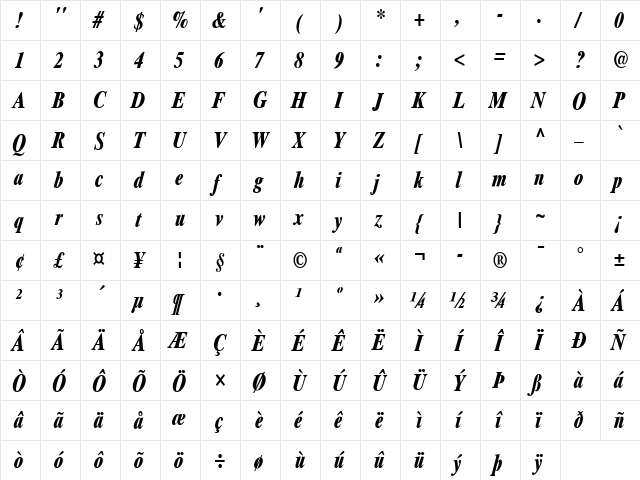
ft69 Bold Italic
Design Context for ft69 Typeface
ft69 is a composed and adaptable typeface that performs quietly and consistently across a wide range of design contexts. The slanted form adds forward momentum and visual energy. The heavy weight commands attention and anchors typographic hierarchies.
Pro Tip: Use ft69 for emphasis, pull quotes, and subheadings where its slanted energy can add rhythm to the layout.